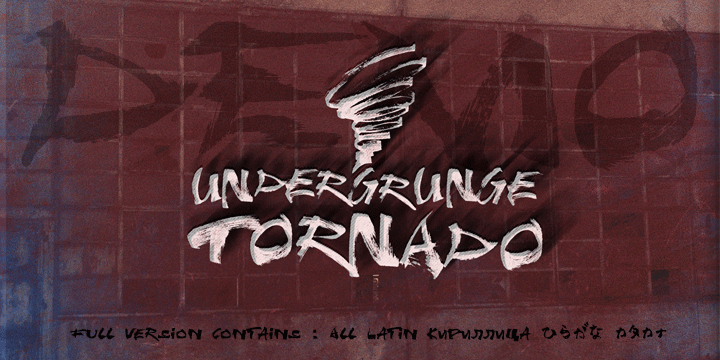
Preview and download Undergrunge Tornado Font. Created by Runes & Fonts in Script Brush styles with Demo license.
UNDERGRUNGE TORNADO DEMO is a demo version of a grungy style hand drawn poster marker font. It contains Latin A-Z and Japanese Hiragana. For personal use only. Full version contains all Latin language extensions , Cyrillic and Katakana. For commercial use and/or full version and license please email me at myhandwritings@gmail.com or visit http://crtv.mk/h0CDM Please feel free contatct me if you have any questions or feedback. You MAY NOT sell this font or claim them as your own. You MAY NOT edit or rename this font. You MAY NOT redistribute this font. Thank you & I hope you like this font, Roland http://www.rolandhuse.com https://www.facebook.com/pages/Runes-And-Fonts/123221817784772 |